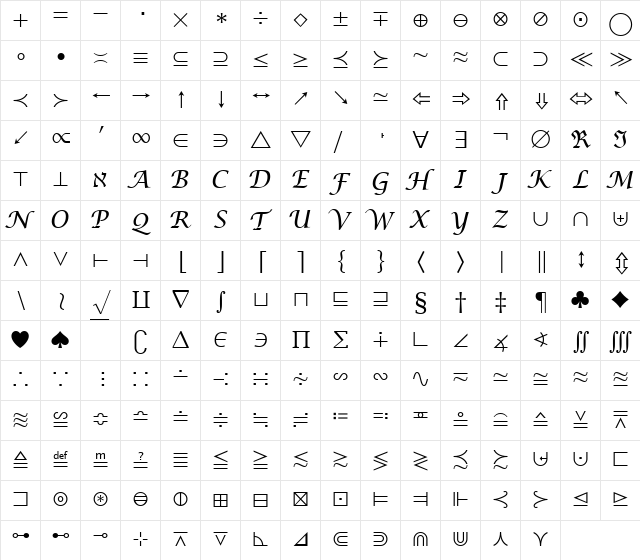
Math Symbol Regular Free Font
Math Symbol Regular
Design Context for Math Symbol
Math Symbol is a composed and adaptable typeface that performs quietly and consistently across a wide range of design contexts.